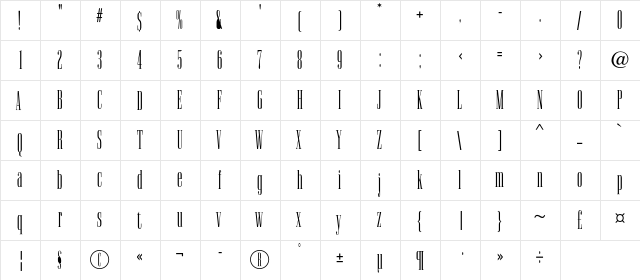
CamertonAC Regular
Design Context for CamertonAC Typeface
CamertonAC is a composed and adaptable typeface that performs quietly and consistently across a wide range of design contexts.